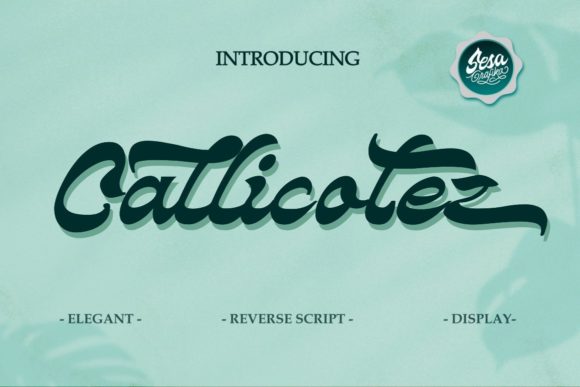
The Retro Charm of Callicotez Font: A Designer’s Delight
I’ll never forget the struggle I faced while working on a children’s activity book project. I was on a deadline, and my design just wasn’t coming together. The font I was using was either too boring or too complicated, and I couldn’t seem to find the perfect fit. That’s when I stumbled upon Callicotez Font, a retro-styled and unique display font that embodies playfulness and authenticity. It was love at first sight! 💕
An Honest Review of Callicotez Font
- ✨ Unique and retro design that adds a touch of playfulness to any project
- 💡 Perfect for children’s activity books, school projects, and other creative endeavors
- 🎨 Highly versatile and can be used for a variety of design projects
While Callicotez Font is an amazing addition to any design project, there are a few things to keep in mind 🤔:
- ⚠️ Limited use in formal or professional settings due to its playful nature
- ⚠️ May not be suitable for body text due to its display font design
A Practical Guide to Using Callicotez Font
The Backstory of Callicotez Font
Callicotez Font was designed with the intention of creating a unique and playful font that’s perfect for children’s activity books and school projects. The designer wanted to create a font that embodies the spirit of creativity and imagination, while also being easy to read and fun to use. 💡
Q: What is Callicotez Font?
Callicotez Font is a retro-styled and unique display font that’s perfect for children’s activity books, school projects, and other creative endeavors.
Q: Is Callicotez Font suitable for body text?
No, Callicotez Font is a display font and is not suitable for body text. It’s best used for titles, headings, and other display purposes.